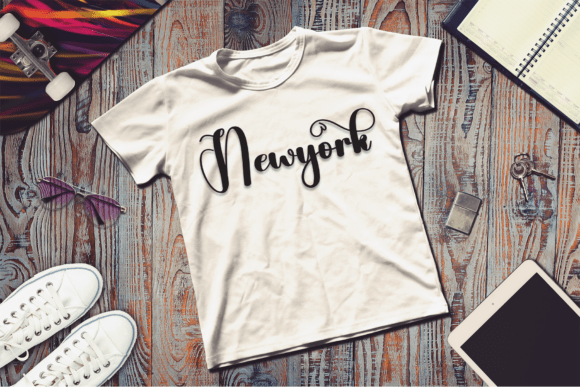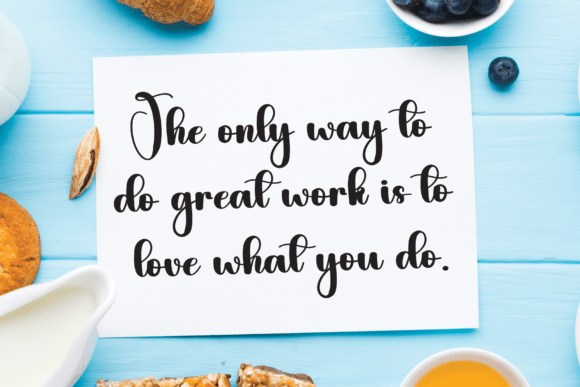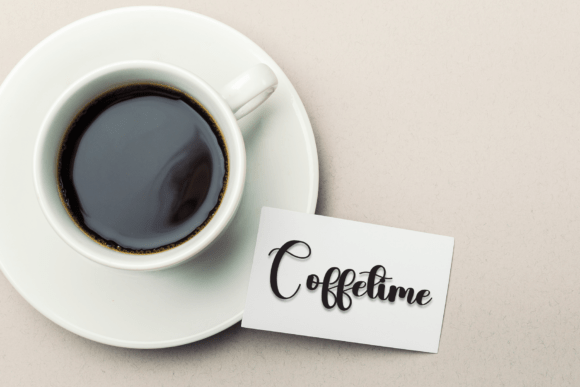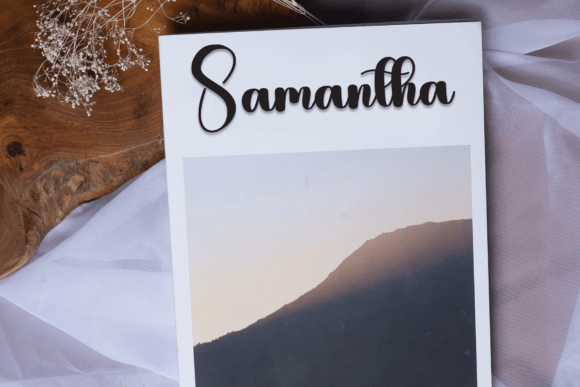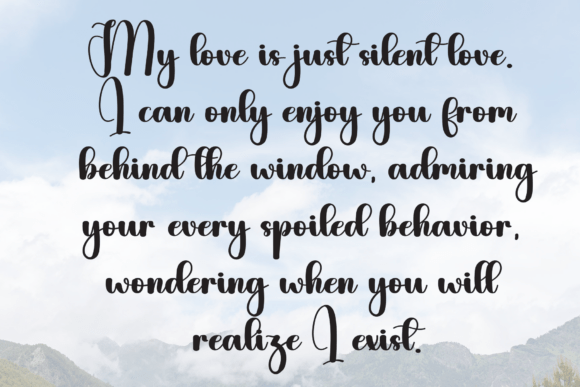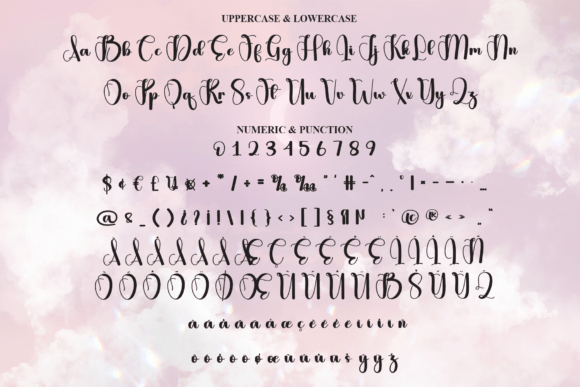
The Perfect Blend of Style and Playfulness: Introducing Barbie Font
As designers, we’ve all been there – staring at a blank canvas, trying to capture the perfect mood and tone for our next project. Sometimes, it’s the smallest details that make all the difference. For me, it was a chance encounter with the Barbie Font that sparked an idea, and I knew I had to share it with the world.
Barbie Font is a charming handwritten script typeface that effortlessly blends modern elegance with a playful touch. Its fluid strokes and whimsical curves bring a personal feel to any design, making it perfect for logos, packaging, and invitations. Whether you’re a seasoned designer or just starting out, the Barbie Font is a valuable addition to your toolkit, offering a unique blend of warmth, sophistication, and creativity.
Barbie Font Key Features
- Font Family: The Barbie Font is a custom font designed specifically for the Barbie brand, featuring a unique and playful style.
- Unique Characteristics: The Barbie Font features a distinctive and feminine style, with rounded edges and elegant lines, making it perfect for branding and marketing materials.
Barbie Font Review
Overall, I was excited to dive into the world of the Barbie font, but my experience was a mixed bag. Here’s what I think works well:
- ✨ The font’s playful, cursive design is perfect for adding a touch of whimsy to children’s content, like educational materials or kids’ clothing labels.
- ✨ The font is highly customizable, allowing you to adjust its size, color, and spacing to fit your specific design needs.
- ✨ The font supports a wide range of languages, making it a great choice for international projects.
- ⚠️ The font’s aesthetic may not be suitable for all audiences, particularly those looking for a more professional or sophisticated look.
- ⚠️ The font’s cursive design can be challenging to read at smaller sizes or in certain contexts, like on mobile devices.
- ⚠️ Some users may find the font’s flair and ornamentation overwhelming or distracting.
In terms of overall impression, I’d say the Barbie font is a fun, if somewhat limited, addition to any designer’s toolkit. While it’s perfect for certain projects, it may not be the best choice for more serious or formal applications.
For best results, use the “Barbie Font” in combination with bright colors and playful graphics.
1. Children’s party invitations and decorations.
2. Fashion and beauty brand logos and marketing materials.
3. Whimsical and playful branding for restaurants, cafes, and bakeries.